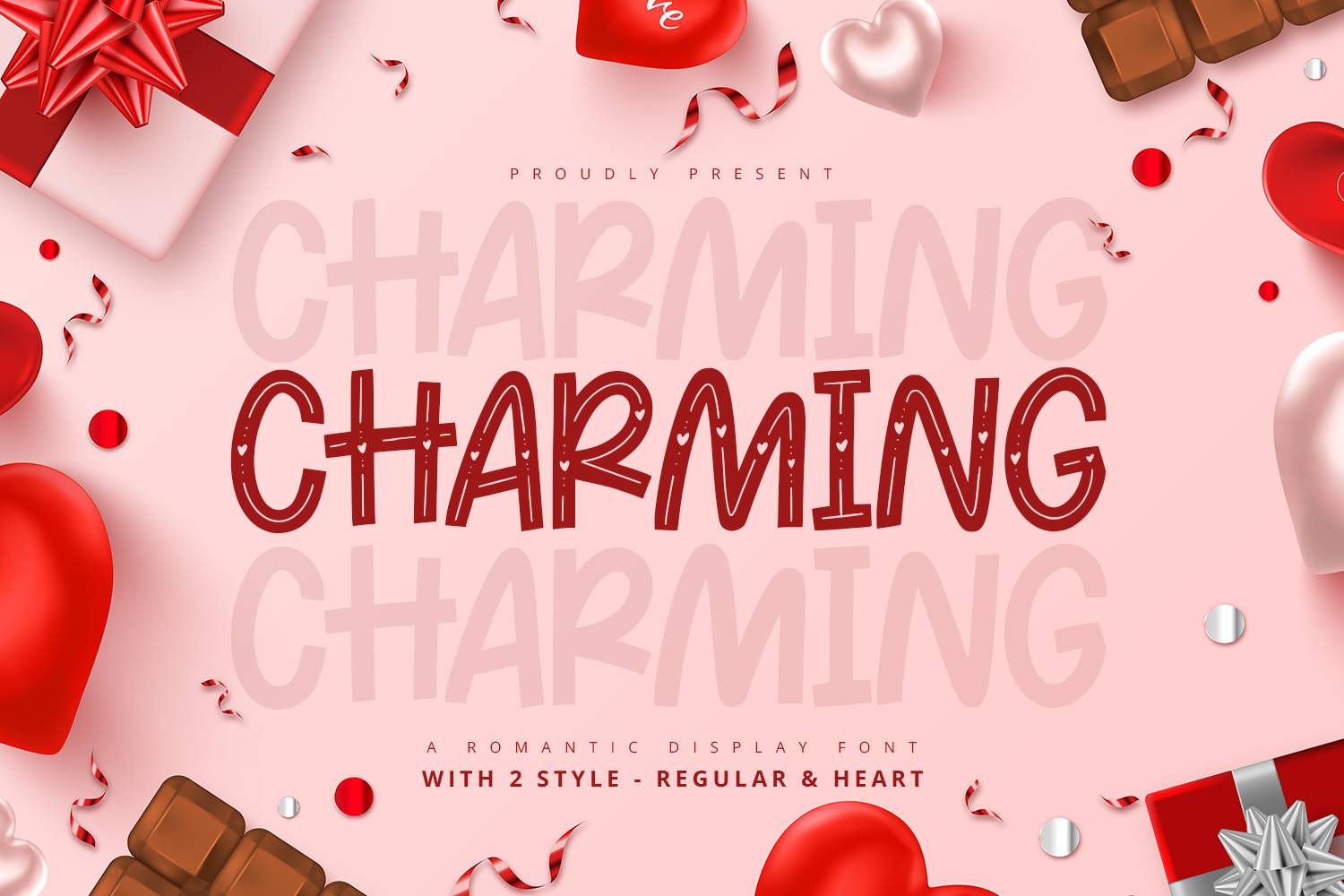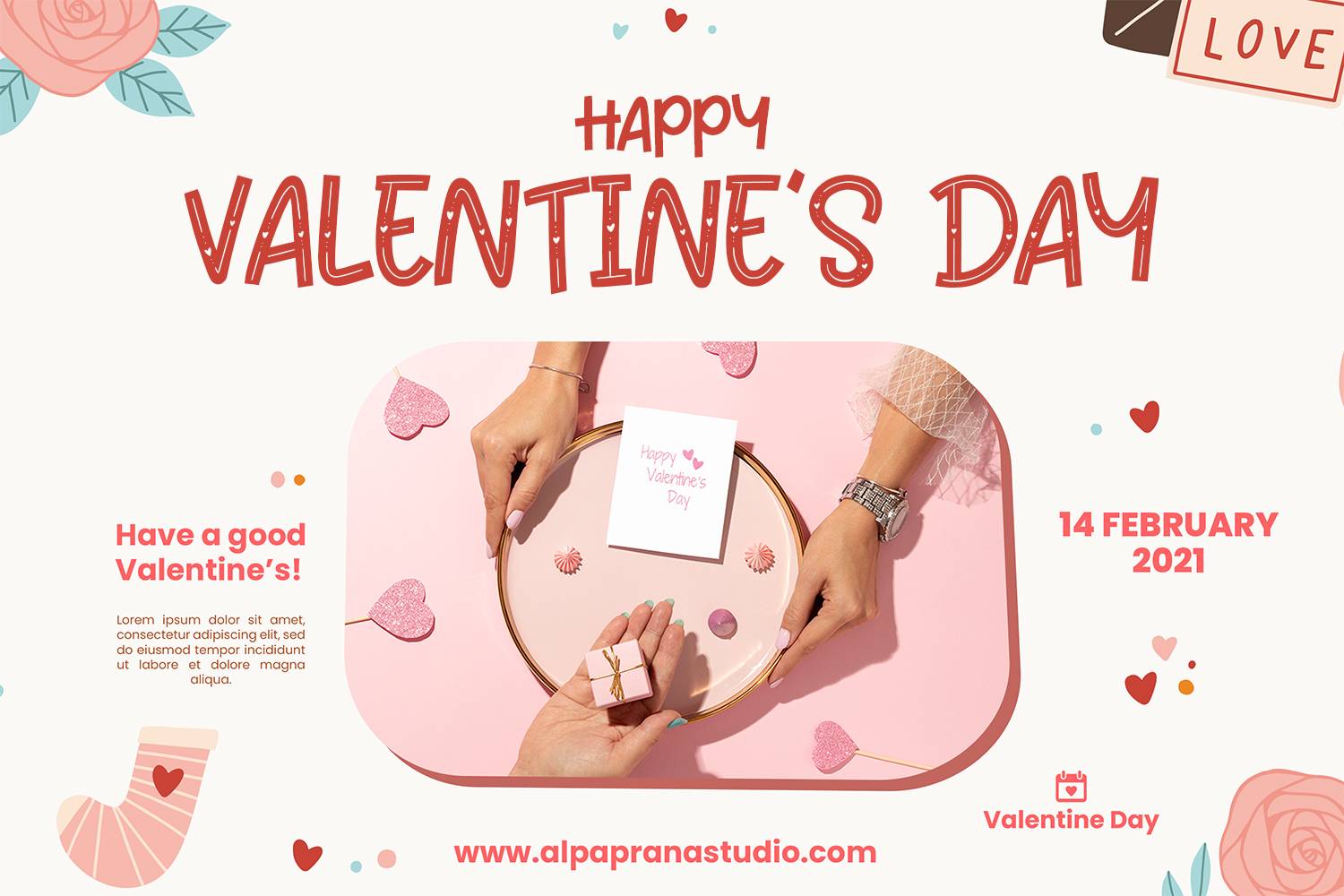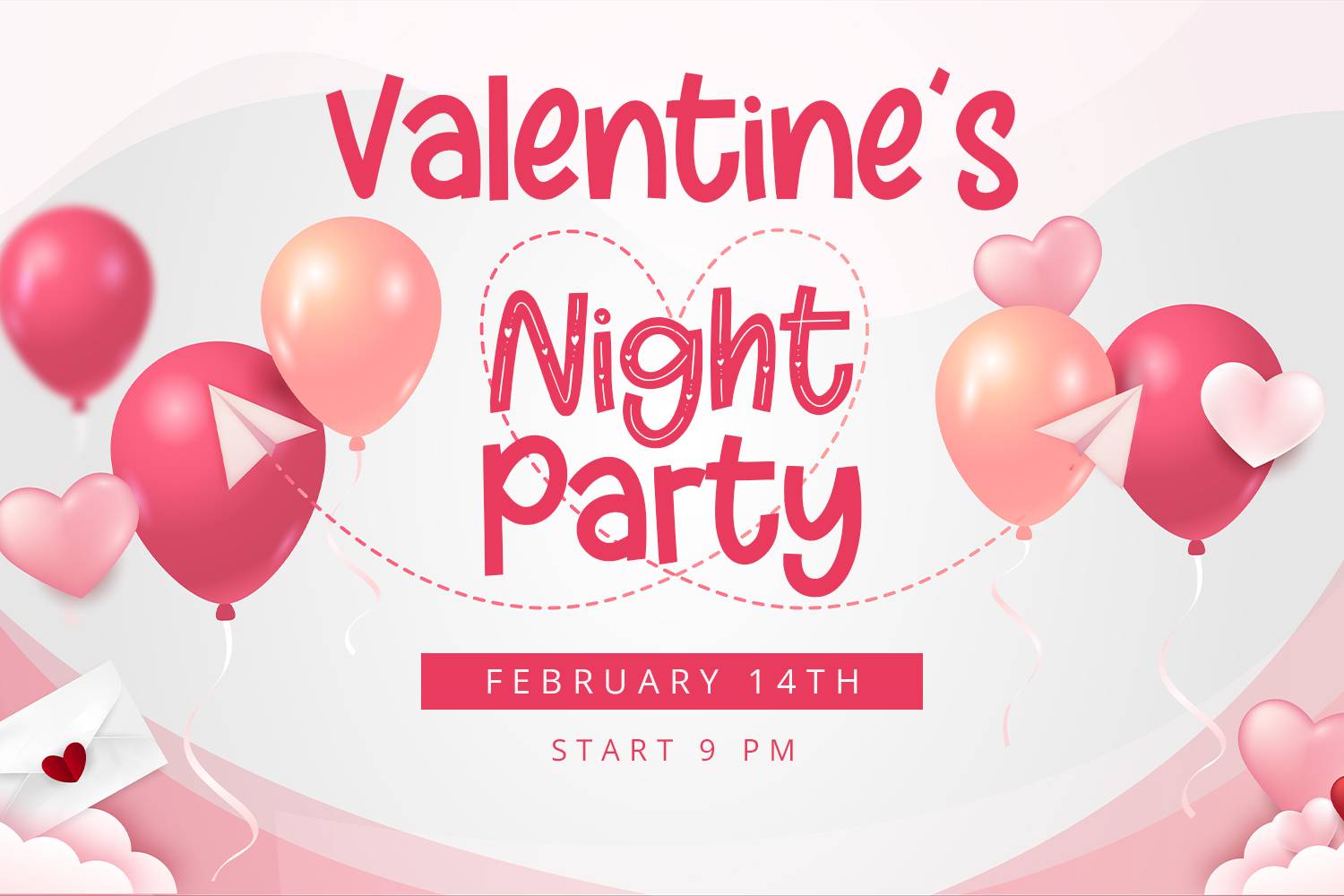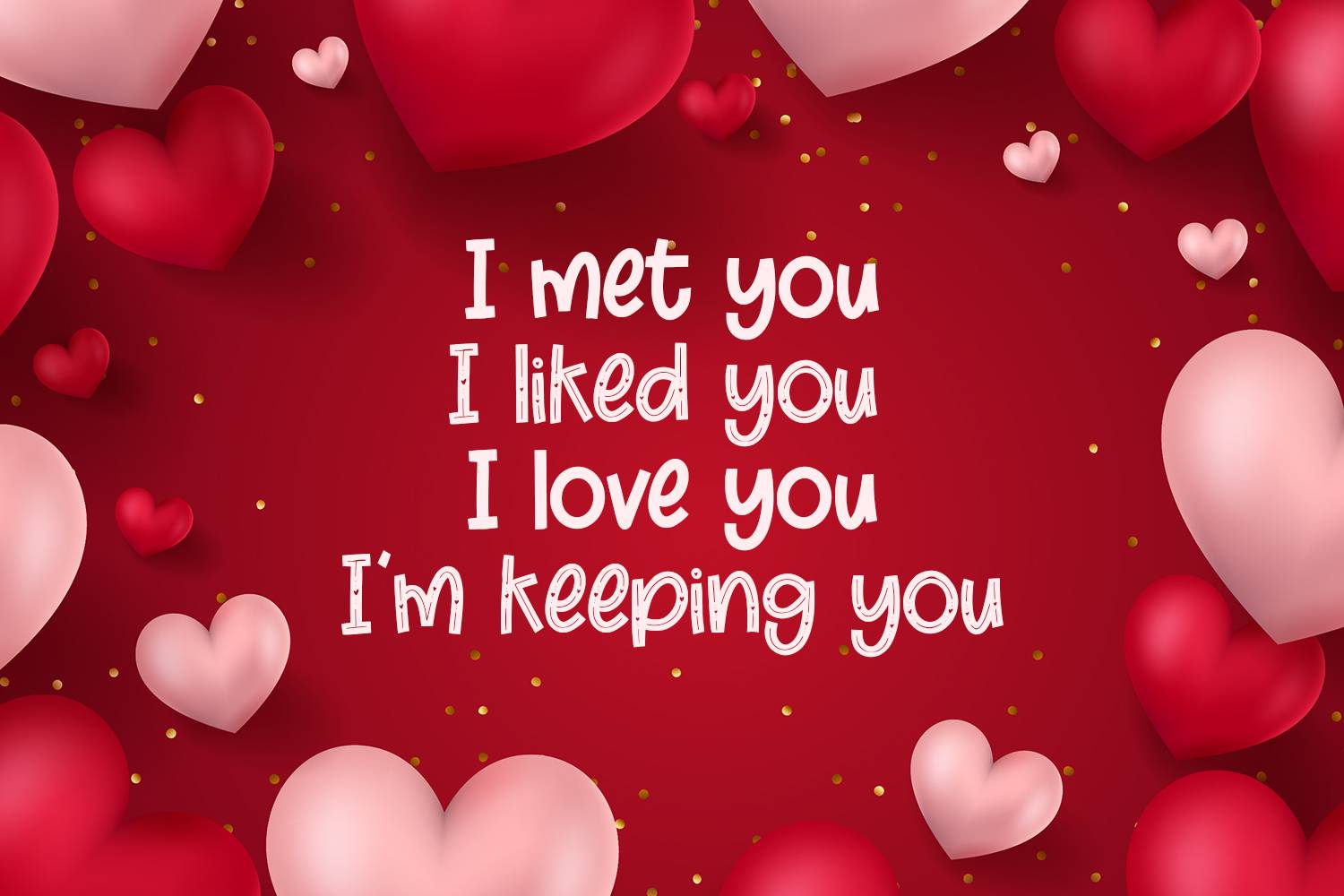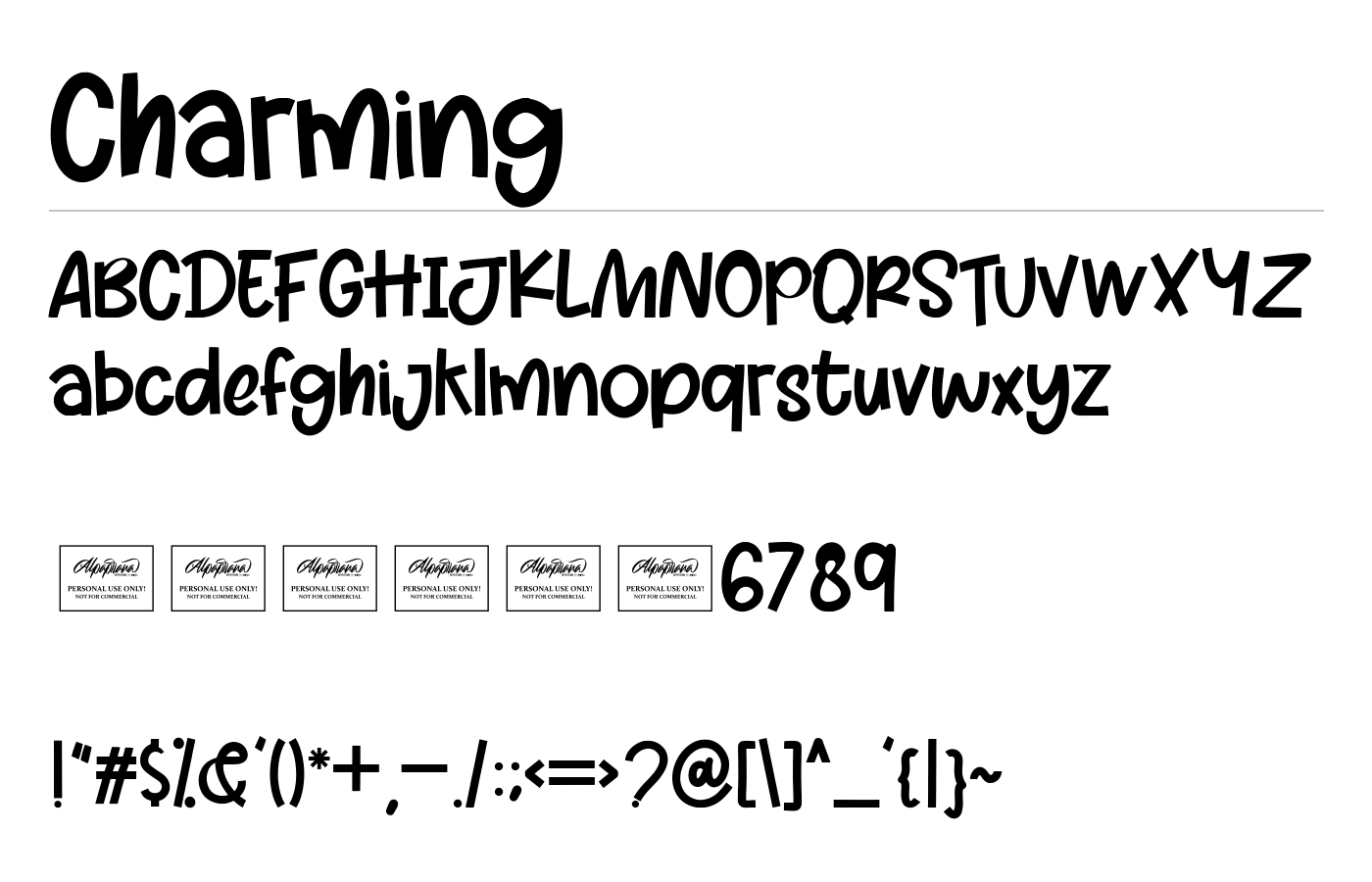
Charming Font is a playful and friendly sans serif typeface with a casual, hand-drawn feel. Its medium weight, slightly irregular letterforms, and generous spacing create a warm and approachable personality, making it ideal for informal branding, children's materials, and creative projects where a lively, relaxed tone is desired. This font works well for headlines, logos, and packaging that seek to convey charm and personality with a touch of uniqueness.
Charming Font
About Charming Font